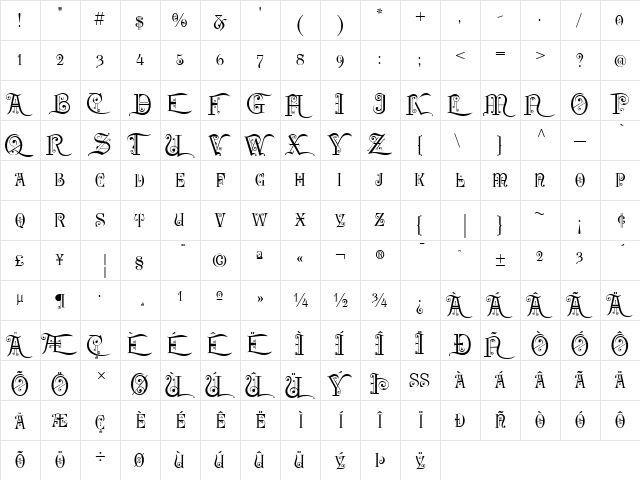
P22 Kilkenny Swash Caps Swash Caps
| Designer | Paul Hunt |
Design Context for P22 Kilkenny Swash Caps Typeface
P22 Kilkenny Swash Caps flows with the natural rhythm of handwritten lettering, making it ideal for designs that call for warmth and personal expression.
Font Pairing: Combine P22 Kilkenny Swash Caps with a simple geometric sans for maximum contrast — the tension between flowing curves and clean structure is a classic typographic pairing.
Pro Tip: Pair P22 Kilkenny Swash Caps with a clean sans-serif for supporting text. The contrast between fluid script and geometric structure creates an elegant typographic hierarchy.